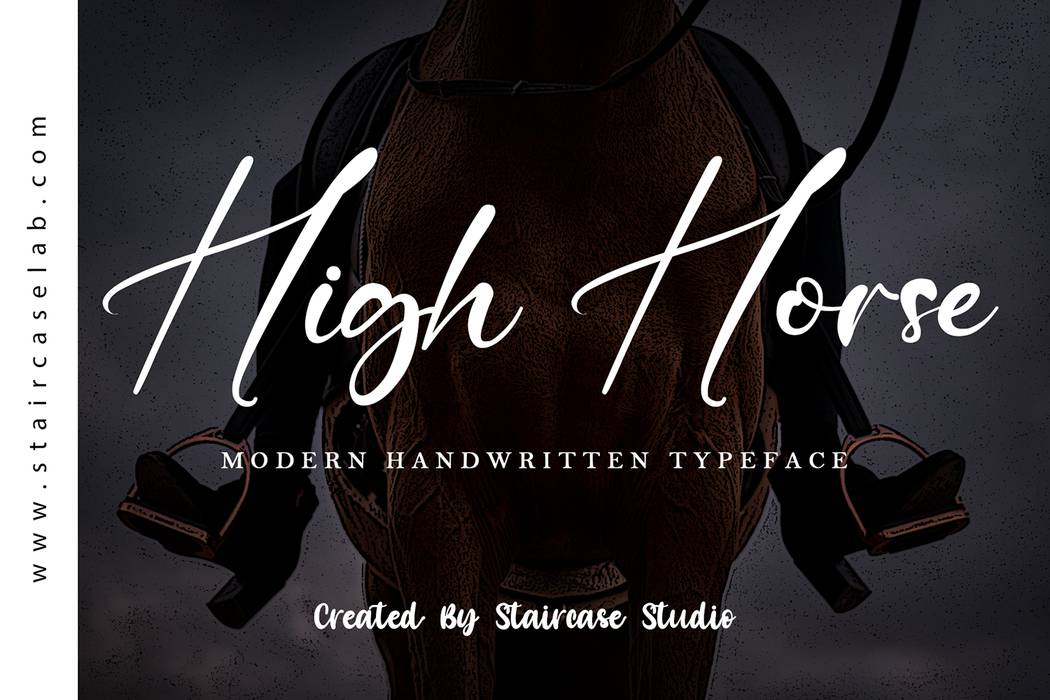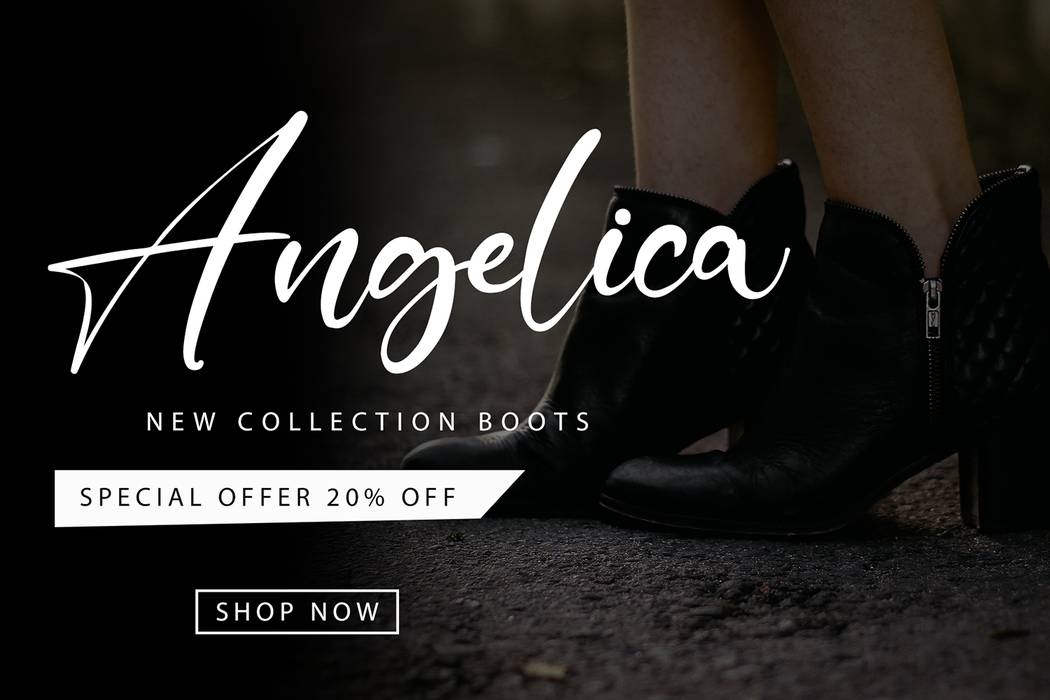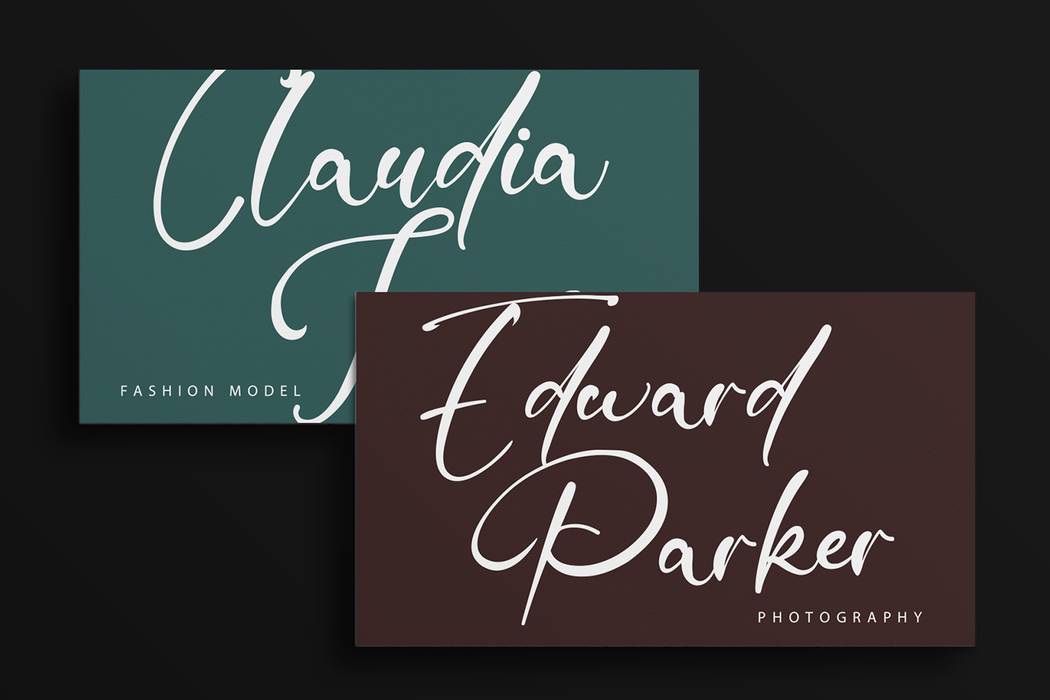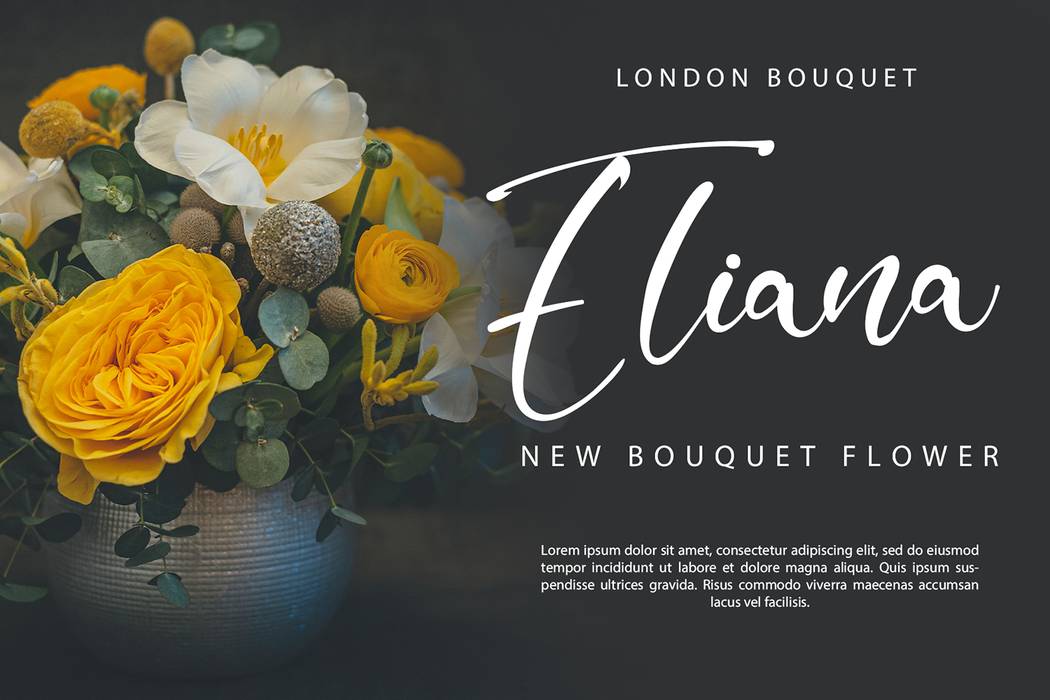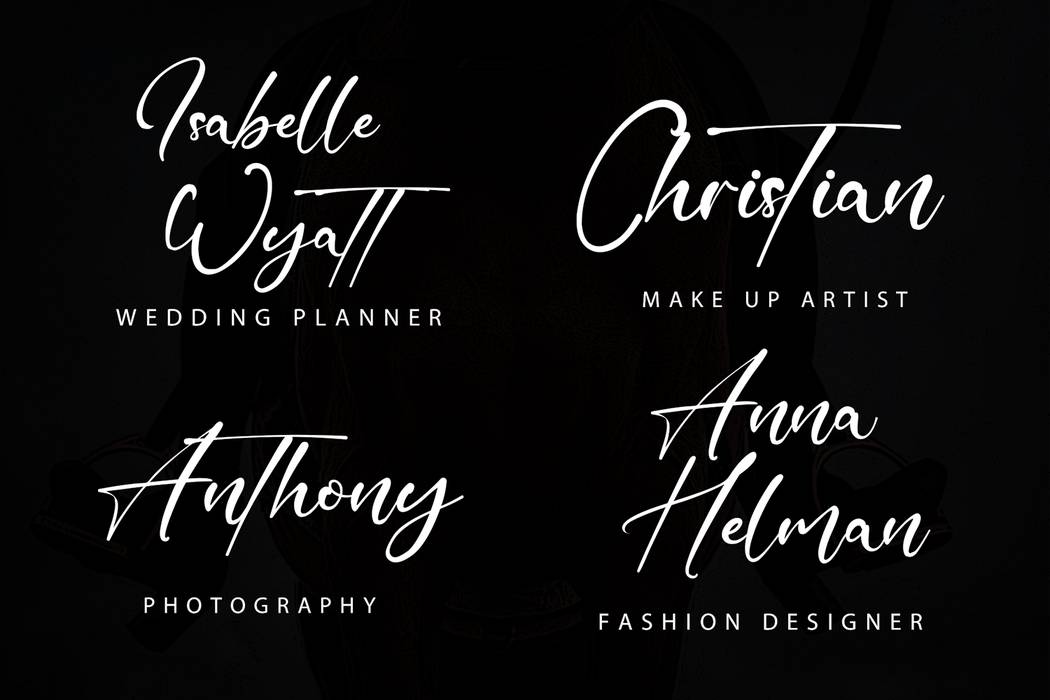
High Horse is an elegant script font with a delicate, flowing style that feels both graceful and modern. Its thin strokes and refined curves give it a sophisticated, handwritten charm, making it perfect for luxury branding, invitations, and stylish logos where a personal, upscale touch is desired. This font works best in headlines and decorative uses where its intricate details can be fully appreciated.
High Horse Font
About High Horse Font
| Font family | High Horse Font |
| Release date | 2021-08-24 |
| Designer | Staircase Studio |